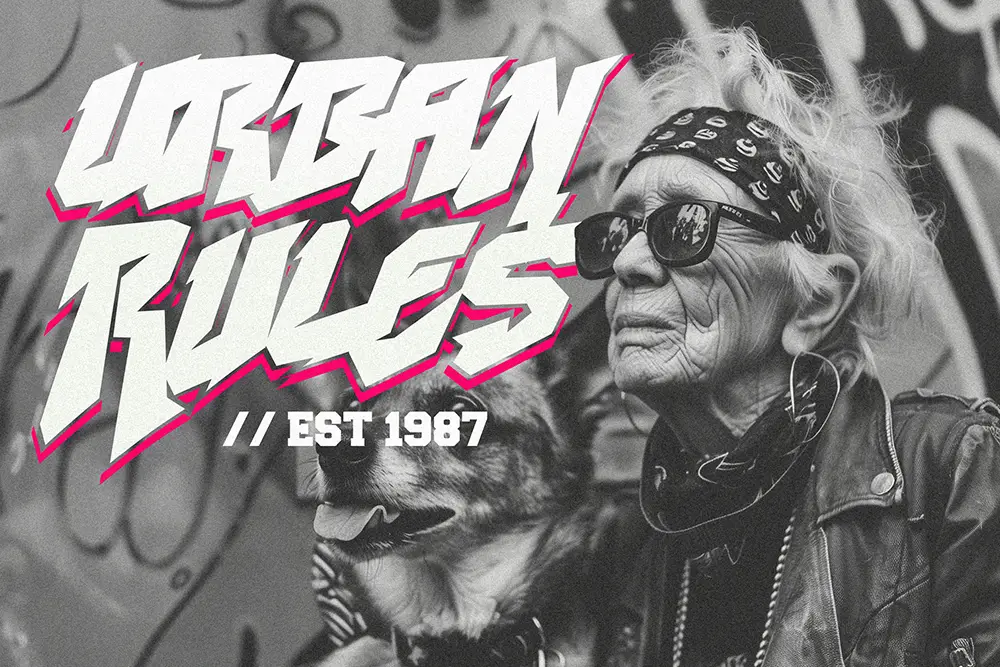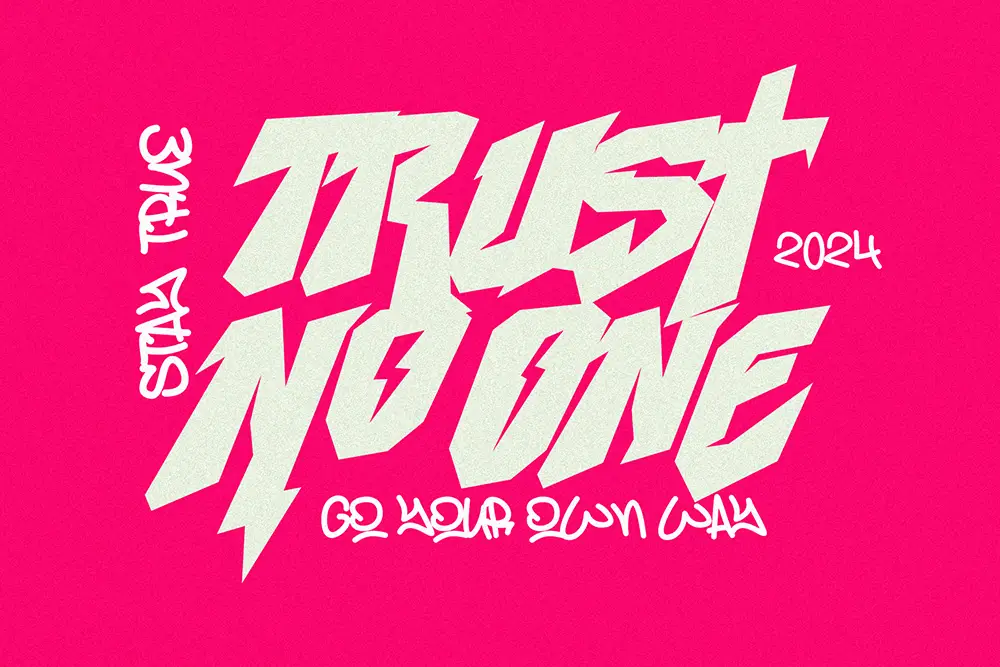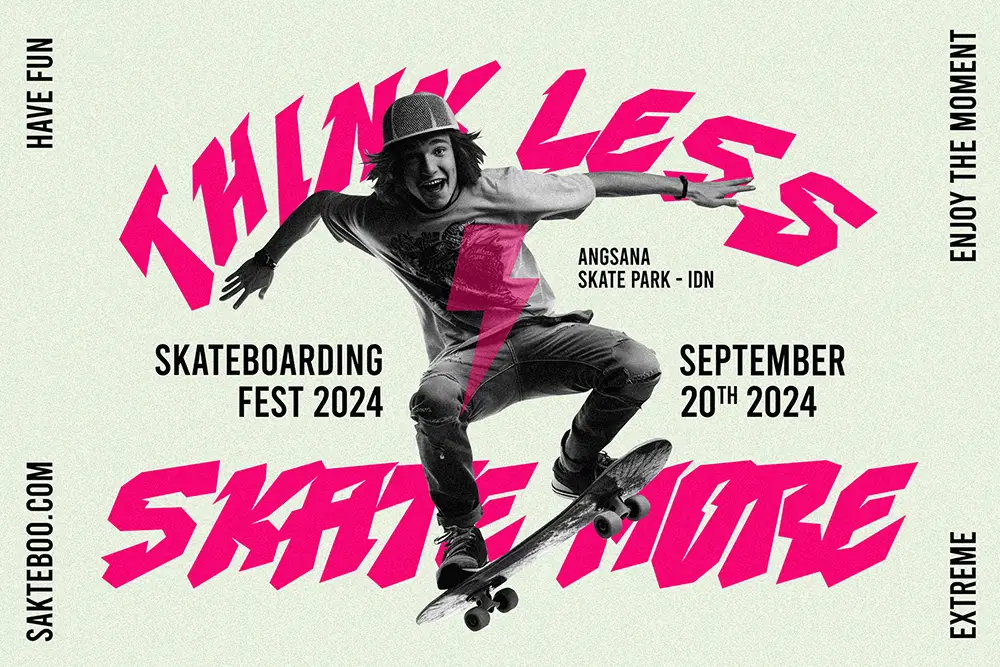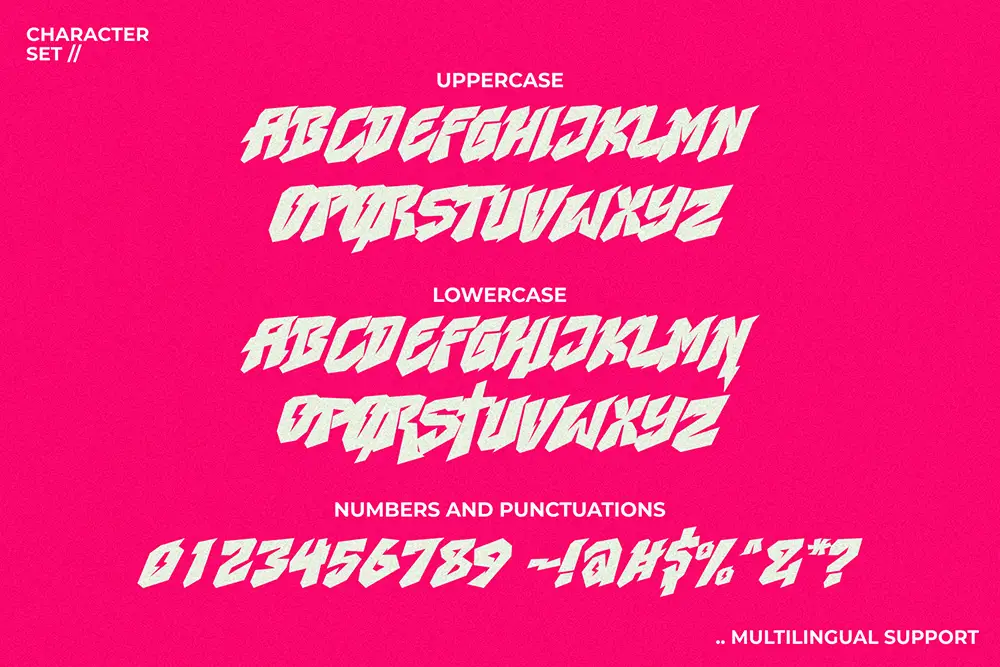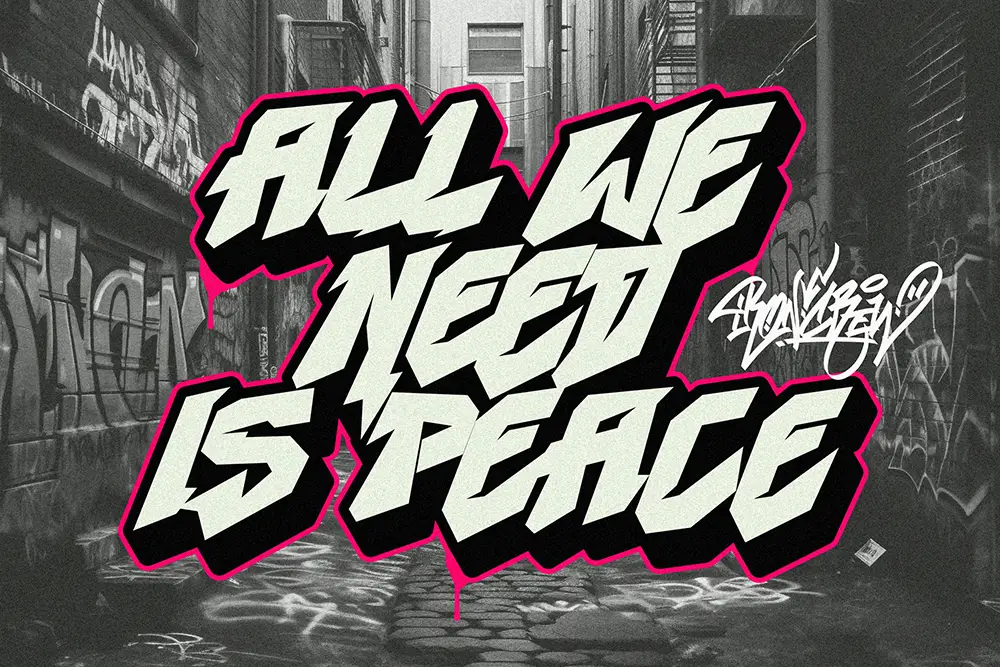
Noah Project
Looking for a graffiti-style font that screams personality? Meet Noah Project, a freestyle display font packed with urban vibes and untamed energy. Whether you’re designing a rap album cover, streetwear logo, or rebellious poster, this font brings that fearless street-style attitude right into your project.
Freestyle Font with Real Graffiti Energy
Noah Project isn’t just a font—it’s a visual statement. Each letterform is drawn with a dynamic, forward-leaning motion, mimicking the flow of real graffiti tags on concrete walls. The aggressive angles, sharp cuts, and bold strokes capture the essence of street culture in its rawest form.
Inspired by hip-hop, skate punk, and underground movement aesthetics, Noah Project is ideal for:
• Streetwear branding
• Mixtape & album covers
• YouTube thumbnails
• Event posters
• Sticker packs
• Graffiti art merchandise
What’s Inside
This typeface comes fully equipped with essential typographic features to bring your vision to life
Features:
• Uppercase & Lowercase Letters
• Numbers & Punctuation
• Multilingual Support
You can use Noah Project across print and digital media without compromising its bold, expressive character. It’s built for designers who aren’t afraid to make noise.
Why You’ll Love It
This font works great when you want to stand out. Instead of clean and corporate, Noah Project gives you gritty and powerful. That makes it especially popular among creatives in:
• Youth fashion labels
• Music & entertainment
• Street art projects
• Skateboarding culture
• YouTube & Twitch content creators
The combination of angled baselines and brush-like tapers adds a layer of movement, making even static designs feel alive.